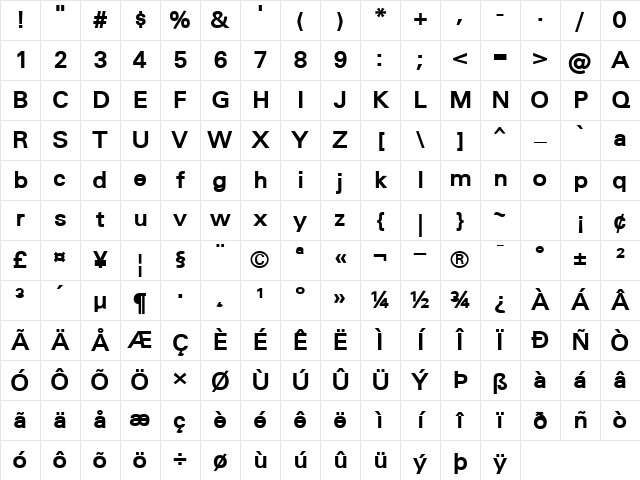
United Bold
United Family
Design Context for United
United is a composed and adaptable typeface that performs quietly and consistently across a wide range of design contexts. Its bold stroke weight gives it real presence on the page.